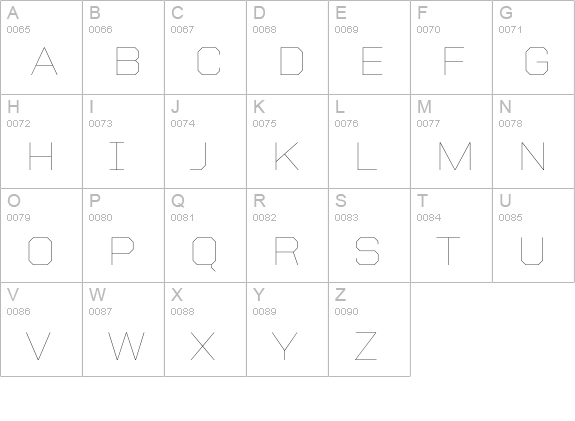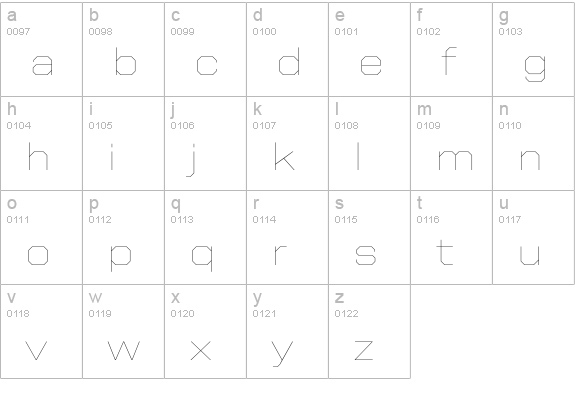
United Sans SemiExt Thin Font Details
United Sans SemiExt Thin is a delicate, low-contrast variant in the United typeface family \xE2\x80\x94 well suited to fashion editorial, minimal branding, and high-contrast display.
United Sans SemiExt Thin is a captivating and modern font that exudes elegance and sophistication. With its sleek and slender design, this font is perfect for creating a refined and polished look in any design project. The thin strokes and graceful curves of United Sans SemiExt Thin give it a unique and distinctive appearance that is both eye-catching and memorable. This font is ideal for a wide range of applications, from branding and advertising to editorial design and web graphics. Whether used in headlines, logos, or body text, United Sans SemiExt Thin adds a touch of class and professionalism to any design. One of the best things about United Sans SemiExt Thin is that it is freely available to download at FontsMarket.com. This means that you can bring this stunning font into your design arsenal without breaking the bank. Simply visit FontsMarket.com, locate the United Sans SemiExt Thin font, and start enjoying its beauty and versatility for free. Don't miss out on the opportunity to enhance your designs with the elegance and visual appeal of United Sans SemiExt Thin. Download it today from FontsMarket.com and let your creativity flow with this incredible font.